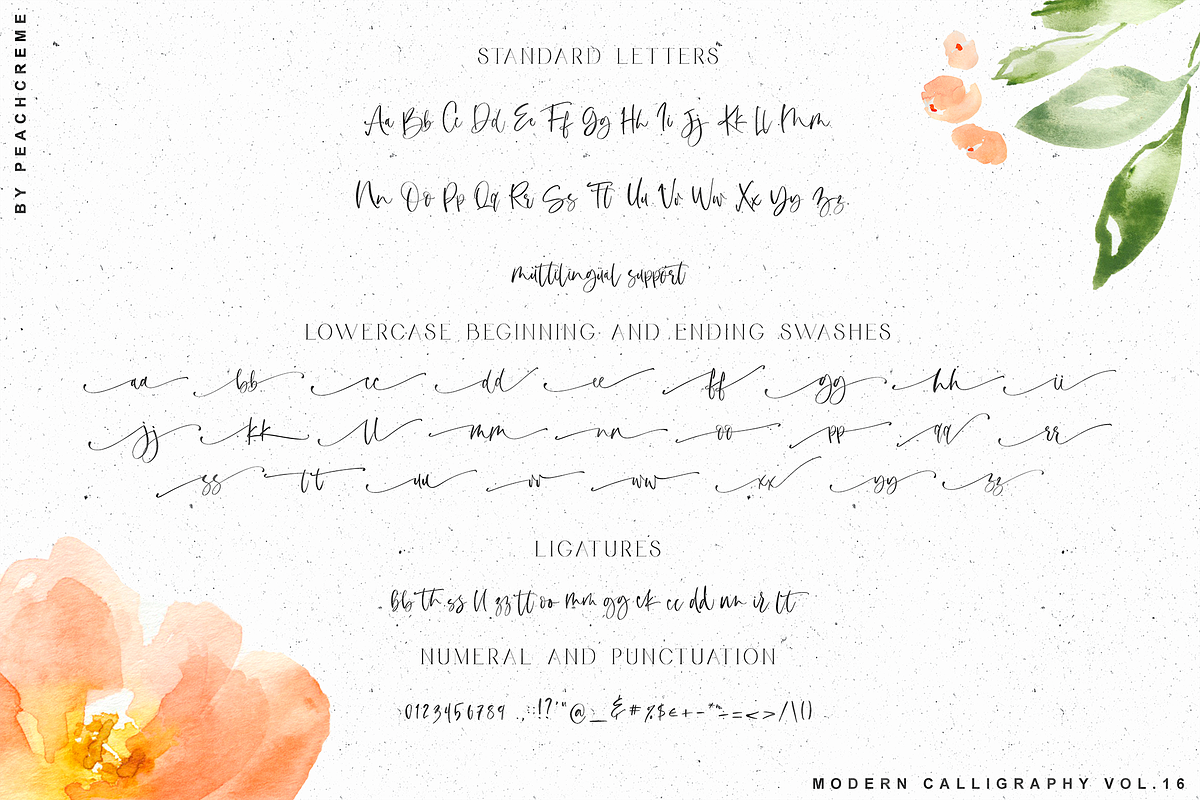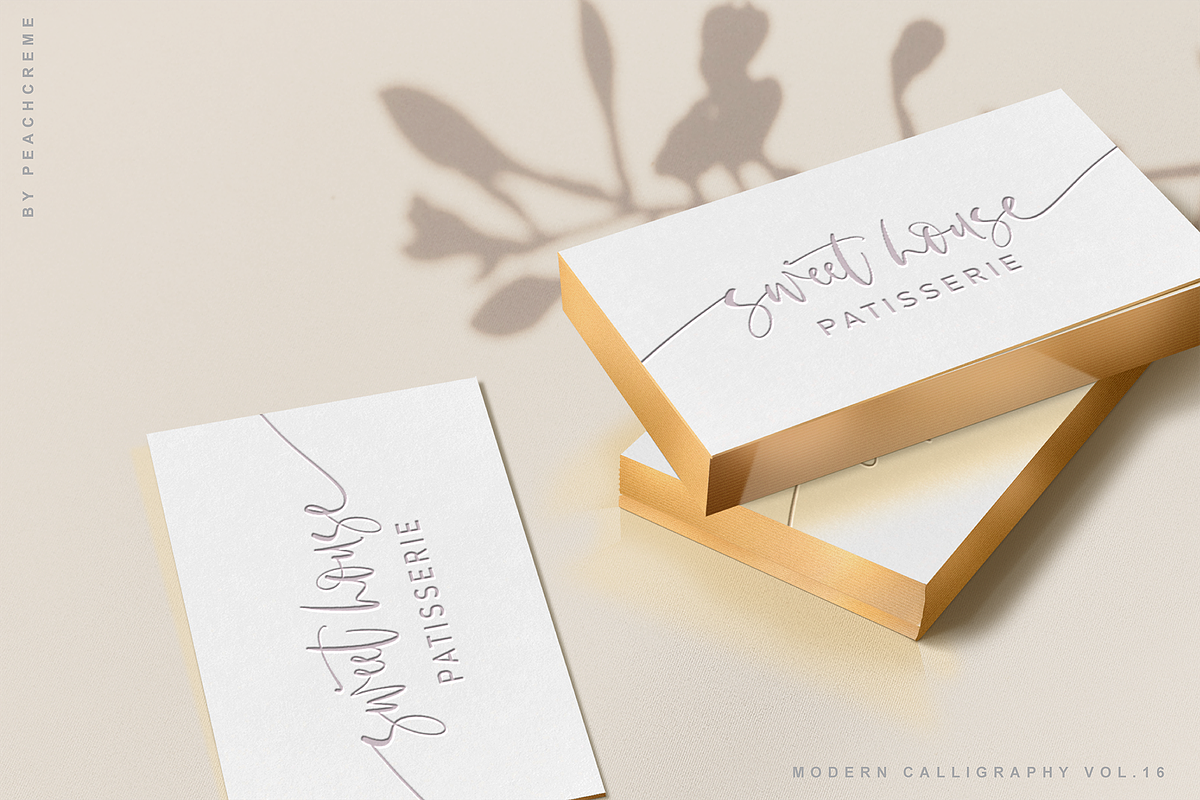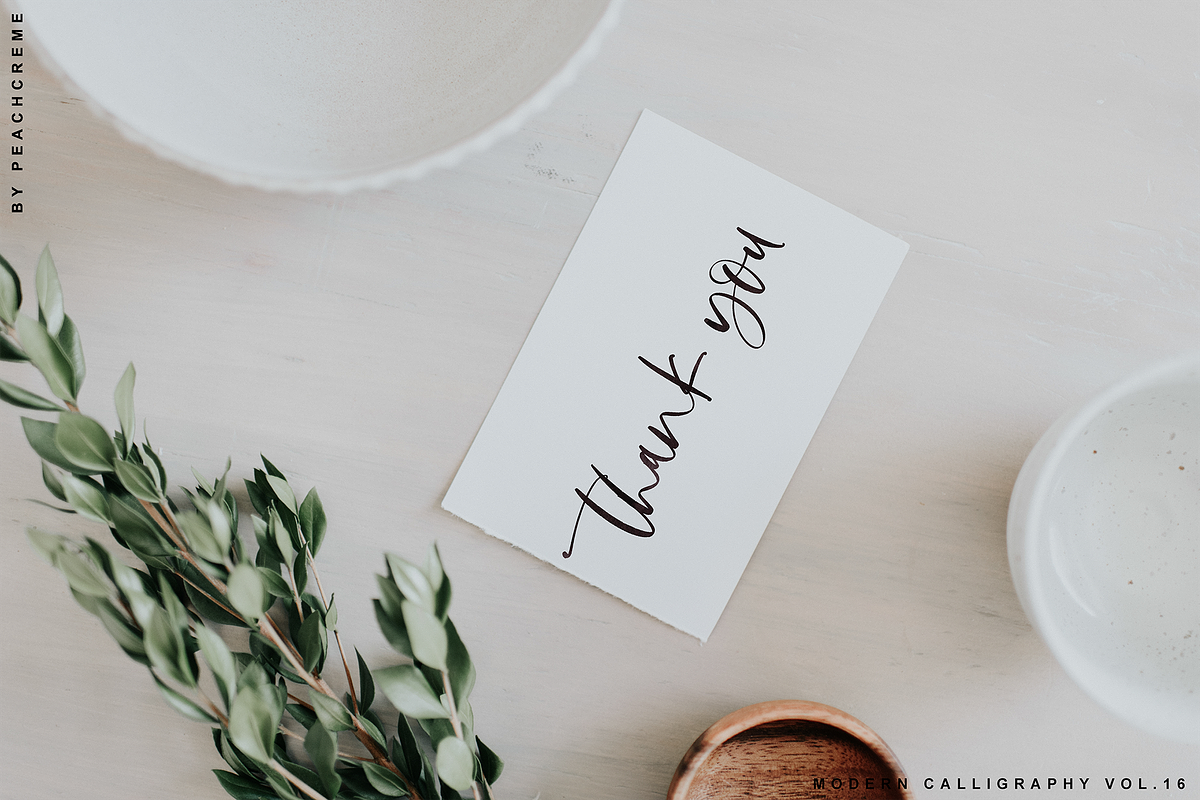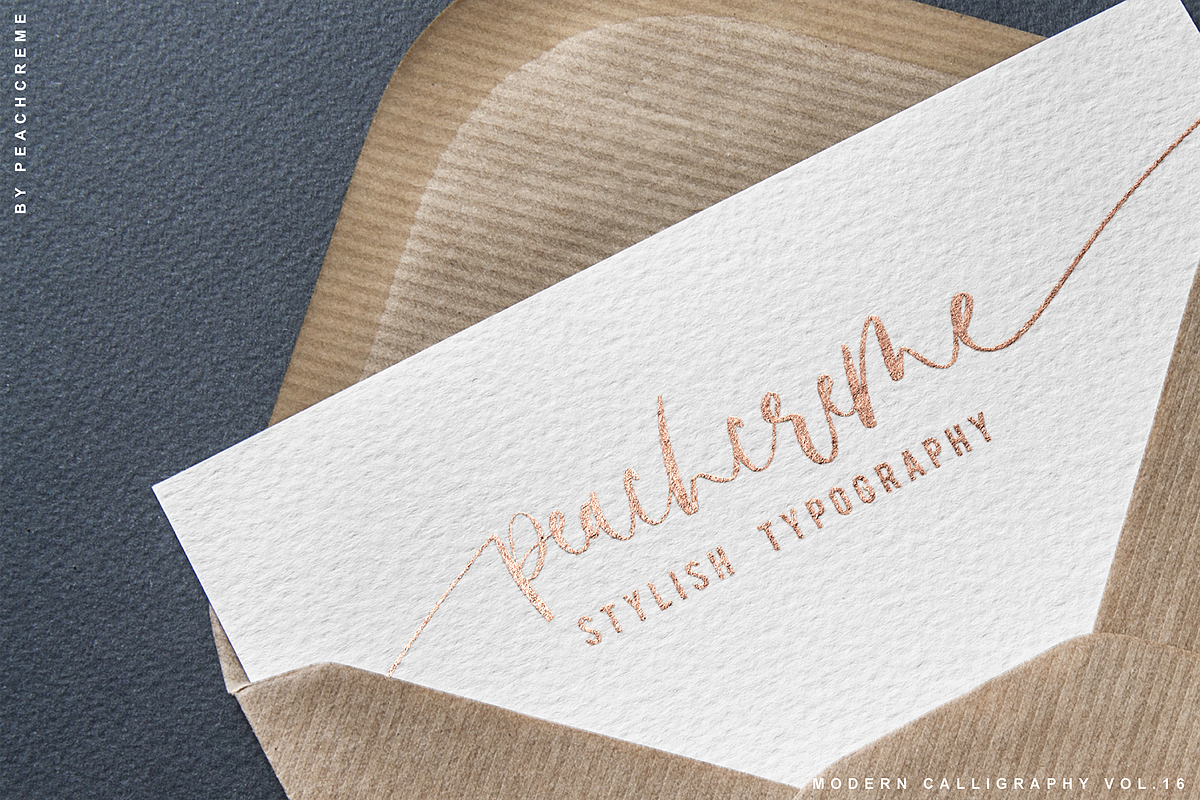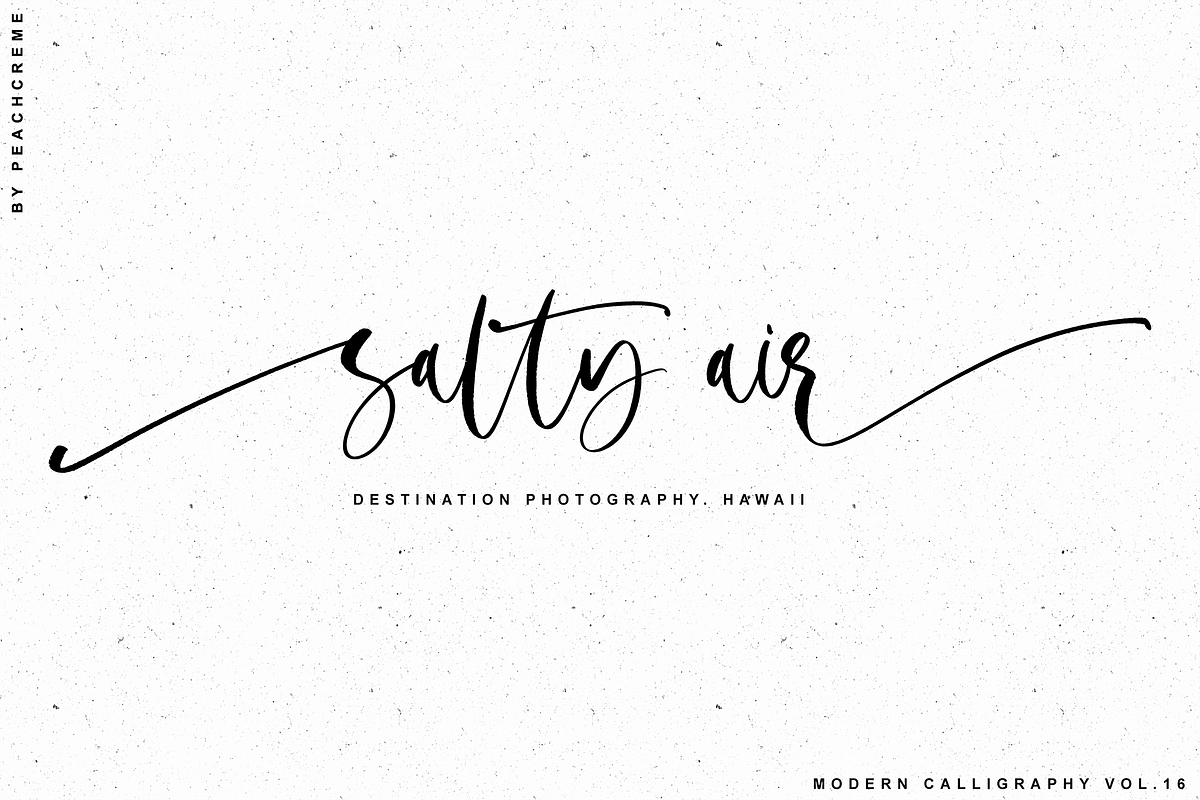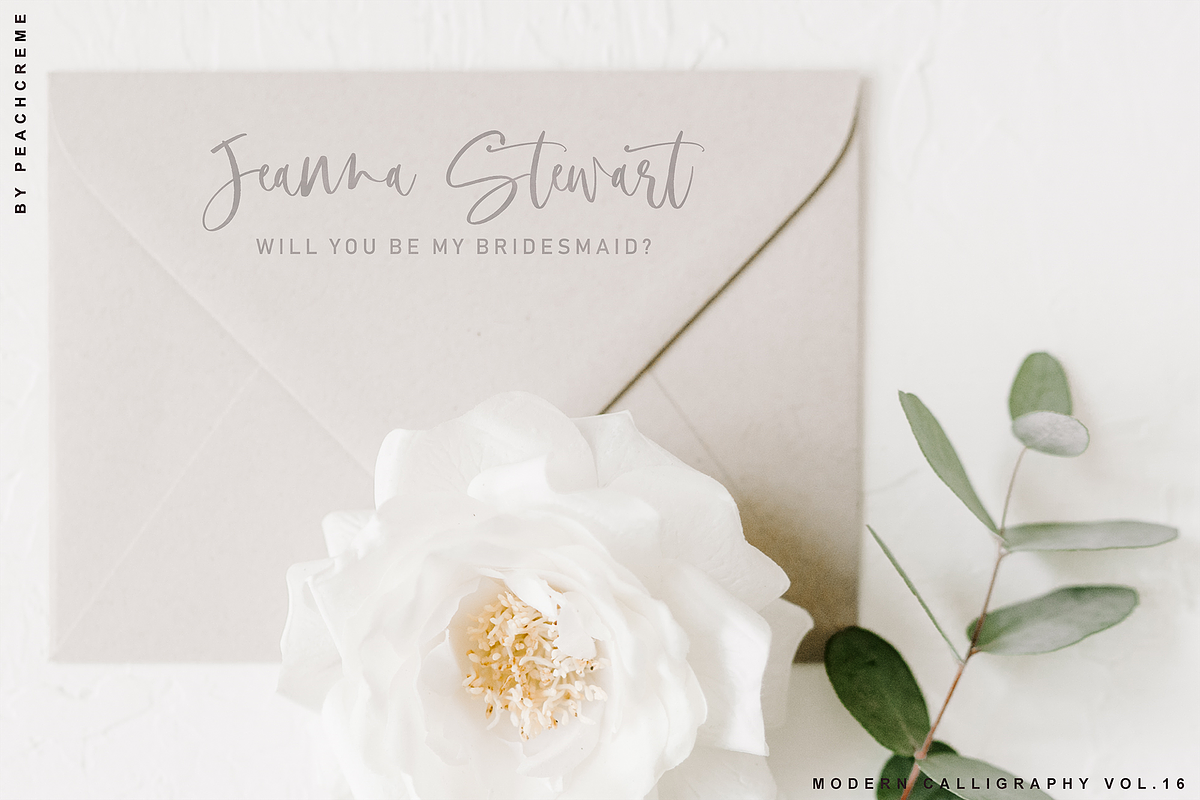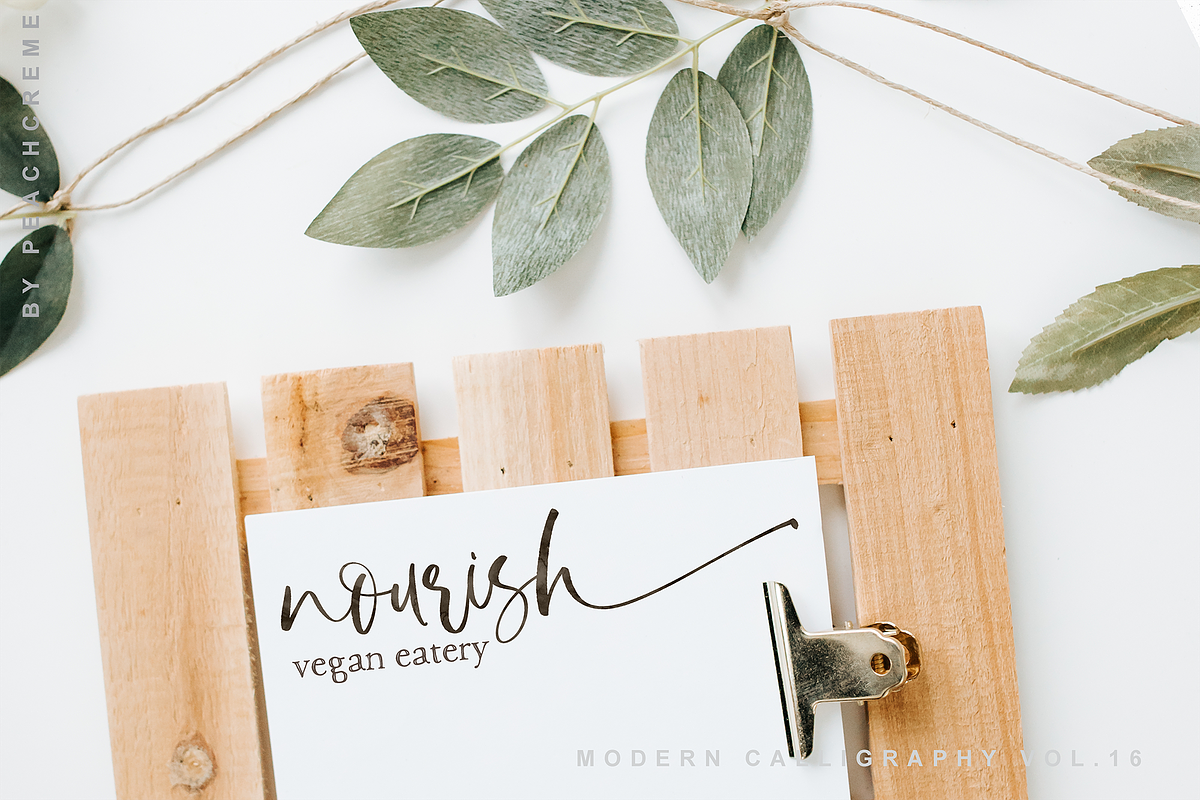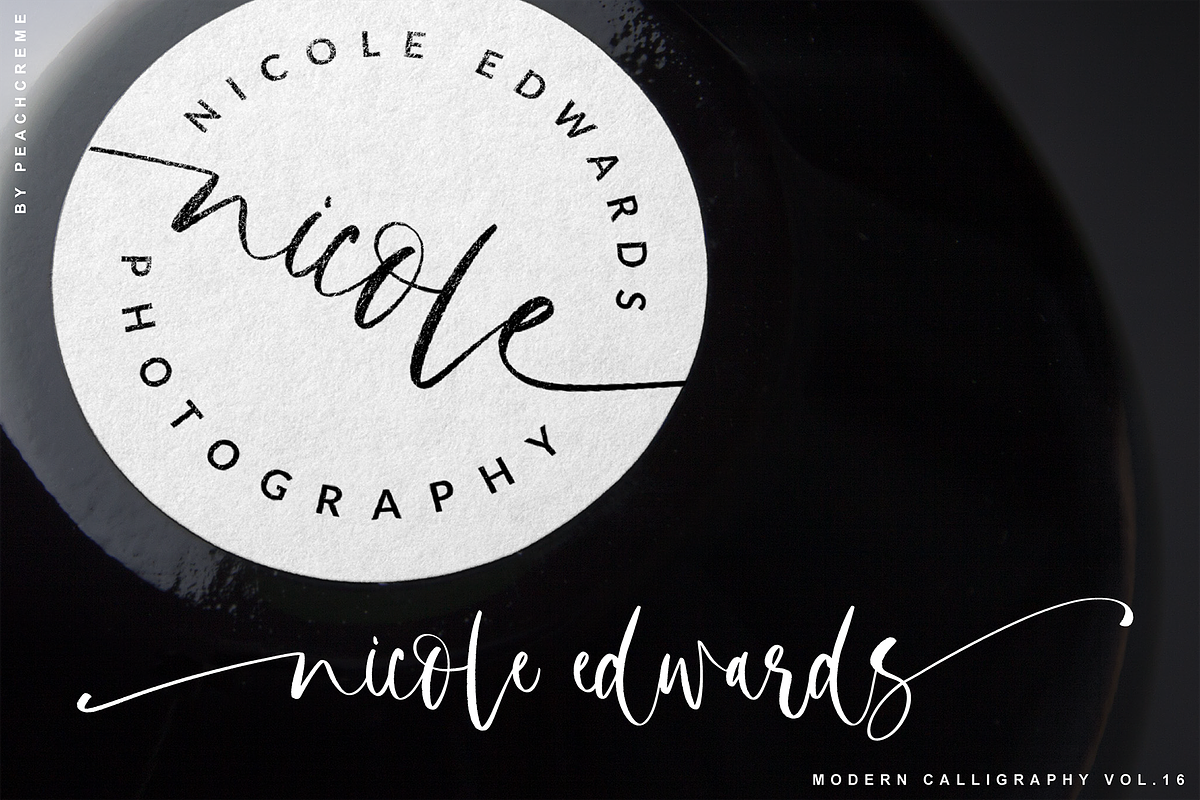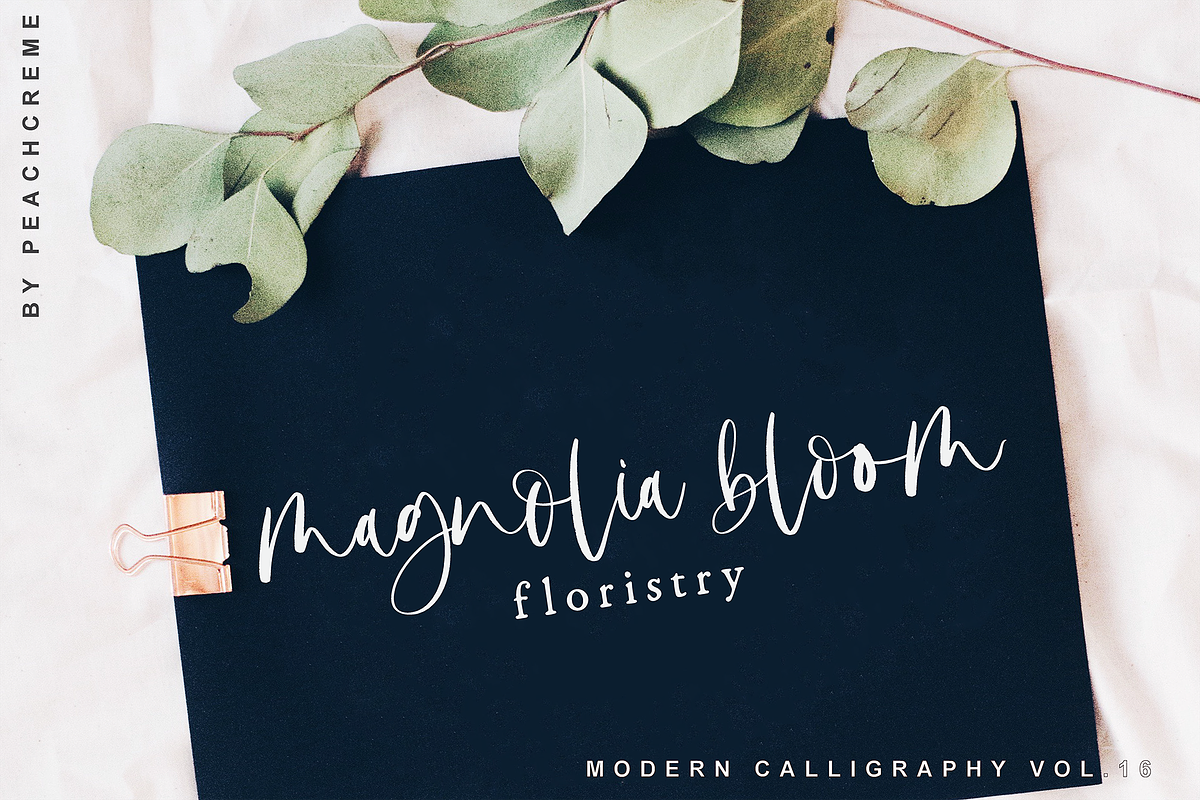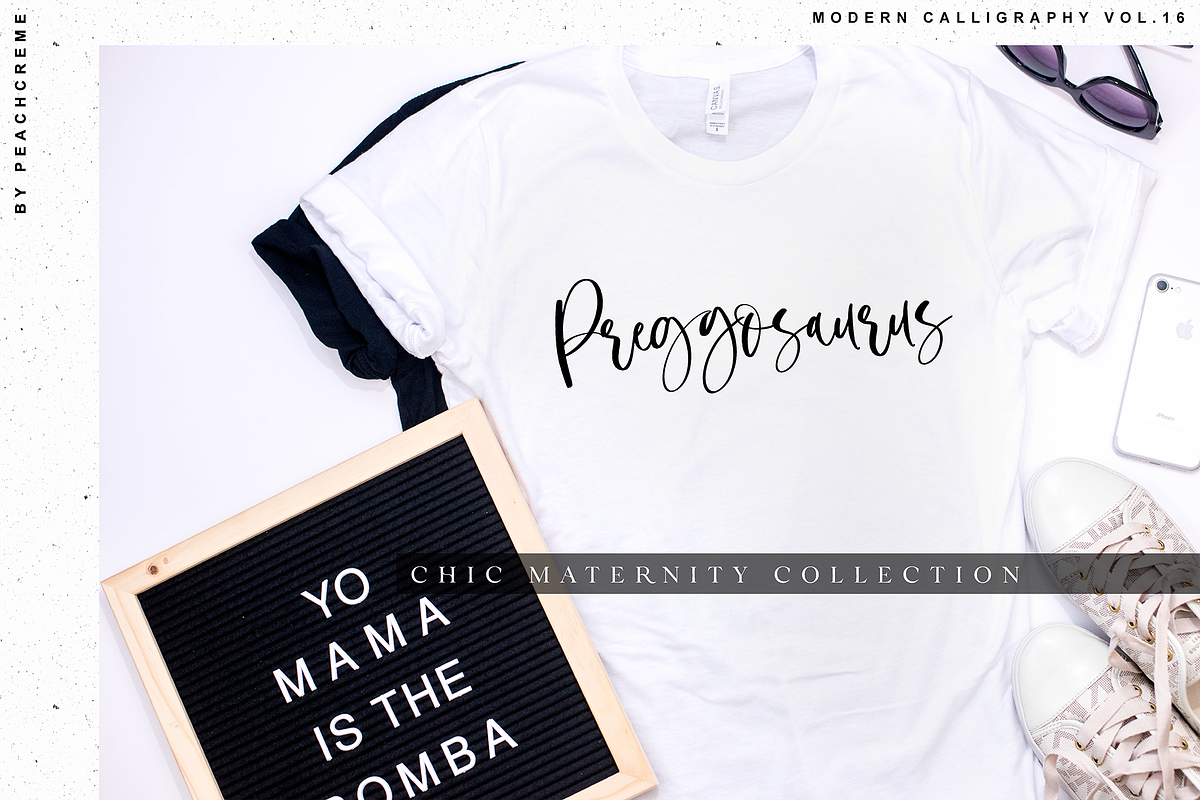
Bonjour // Modern Calligraphy
MODERN CALLIGRAPHY VOL.16
Bonjour is a super stylish crème de la crème modern calligraphy font . It is so chic that perfect EVERYTHING.
"Bonjour" includes full set of lovely uppercase and lowercase letters, multilingual symbols, numerals, punctuation and ligatures.Also it includes beginning and ending lowercase swashes. The font has rough texture, giving it realistic brush effect.